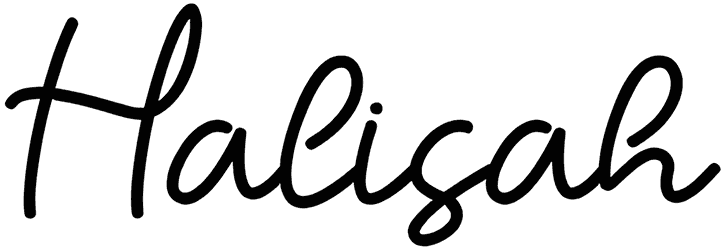
Halisah Font
To have an adorable and charming design, choosing soft and minimal letterforms with a realistic mood can be a great choice. As a modern handwritten font, Halisah is able to bring this vibe to your novel design and can be…
To have an adorable and charming design, choosing soft and minimal letterforms with a realistic mood can be a great choice. As a modern handwritten font, Halisah is able to bring this vibe to your novel design and can be matched with any theme. This neon font doesn’t offer punctuation, but still would be a salient show for many projects, namely posters, movies, logos, etc.